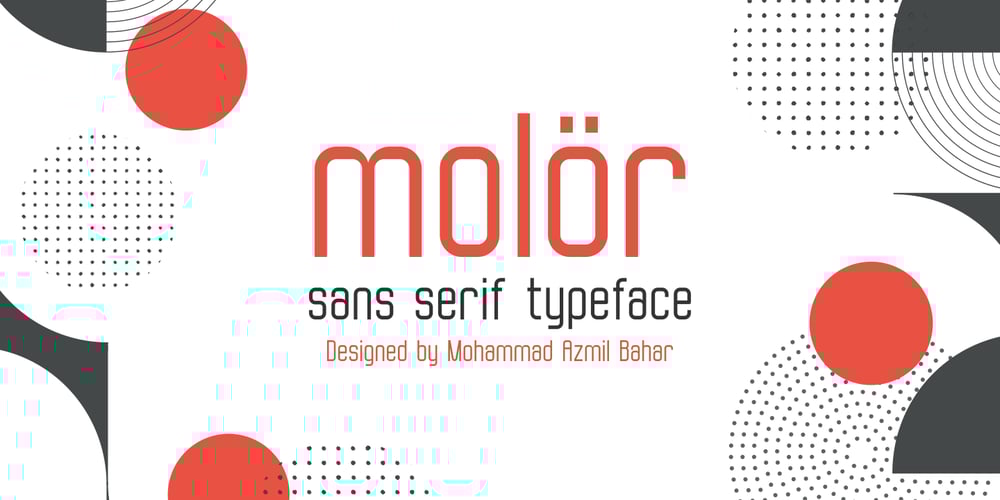
Molor
Molor font
Molor Font Family was designed by Azmill Bahar and published by Sons Of Baidlowi Typefoundry. Molor contains 3 styles and family package options. Molor Font is a sans serif font with an amazing feel. It will turn any design idea into a stand out.